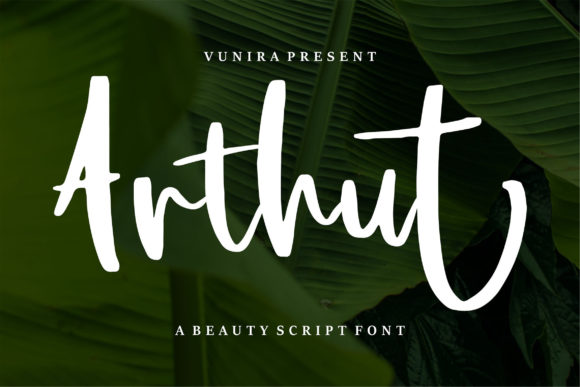
Unleash the enchanting allure of Arthut, a mesmerizing script font that dances across your designs with captivating charm. Every letter, meticulously crafted by the visionary Vunira, exudes authenticity and confidence, making it the perfect medium for expressing your innermost thoughts and emotions.
With Arthut, your words transform into exquisite masterpieces, capturing the essence of your message and leaving an unforgettable impression. Its flowing strokes and graceful curves evoke a sense of effortless elegance, adding a touch of sophistication to any project.
Whether you're crafting heartfelt cards, designing alluring branding, or creating eye-catching labels, Arthut's versatility knows no bounds. Its dynamic personality empowers you to convey your ideas with unwavering style and impact.
Indulge in the transformative power of Arthut, the font that breathes life into your creations, igniting a symphony of emotions and leaving an enduring legacy. Let its enchanting embrace elevate your artistry and inspire you to create works that resonate with authenticity, confidence, and captivating charm.